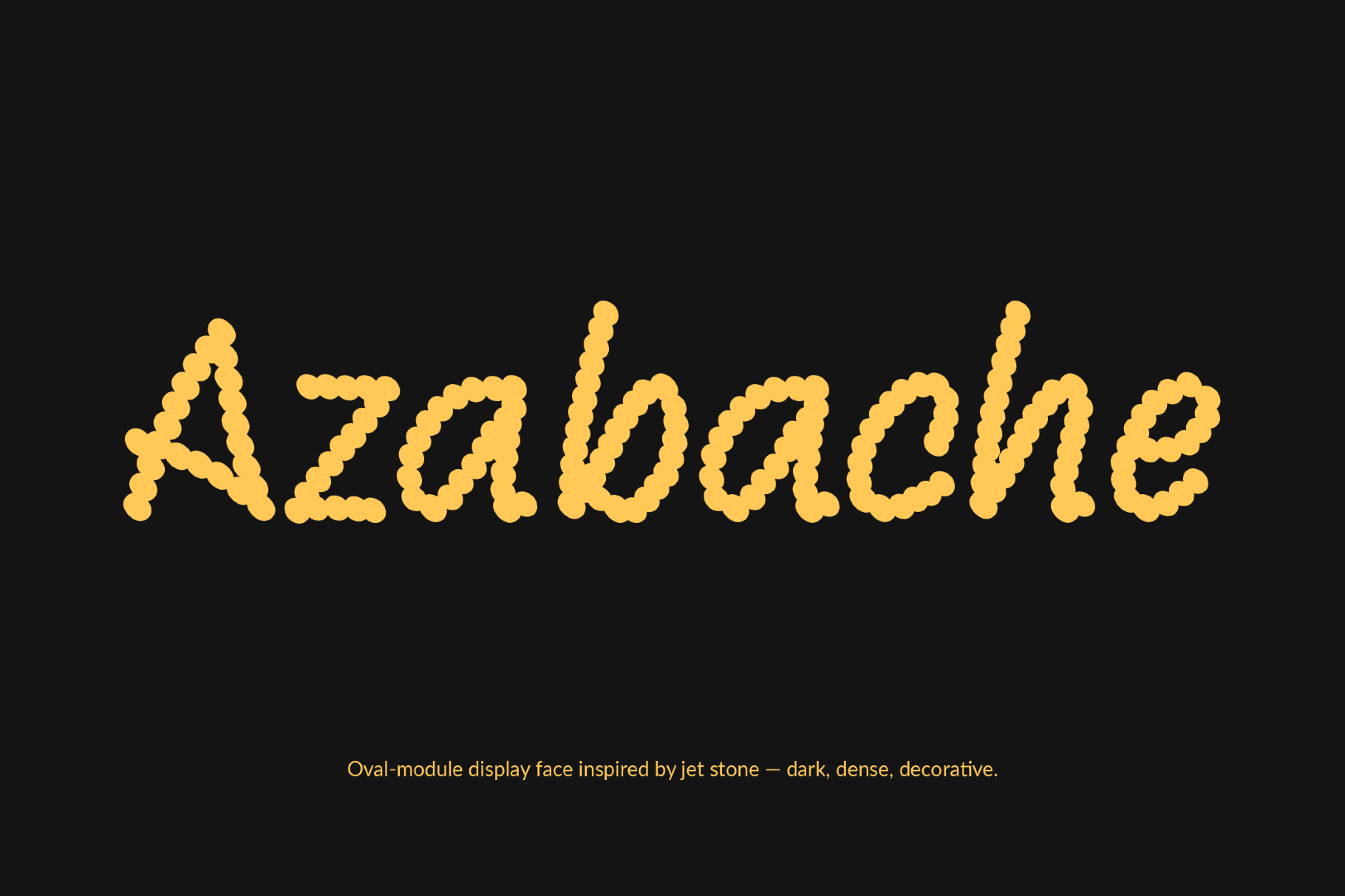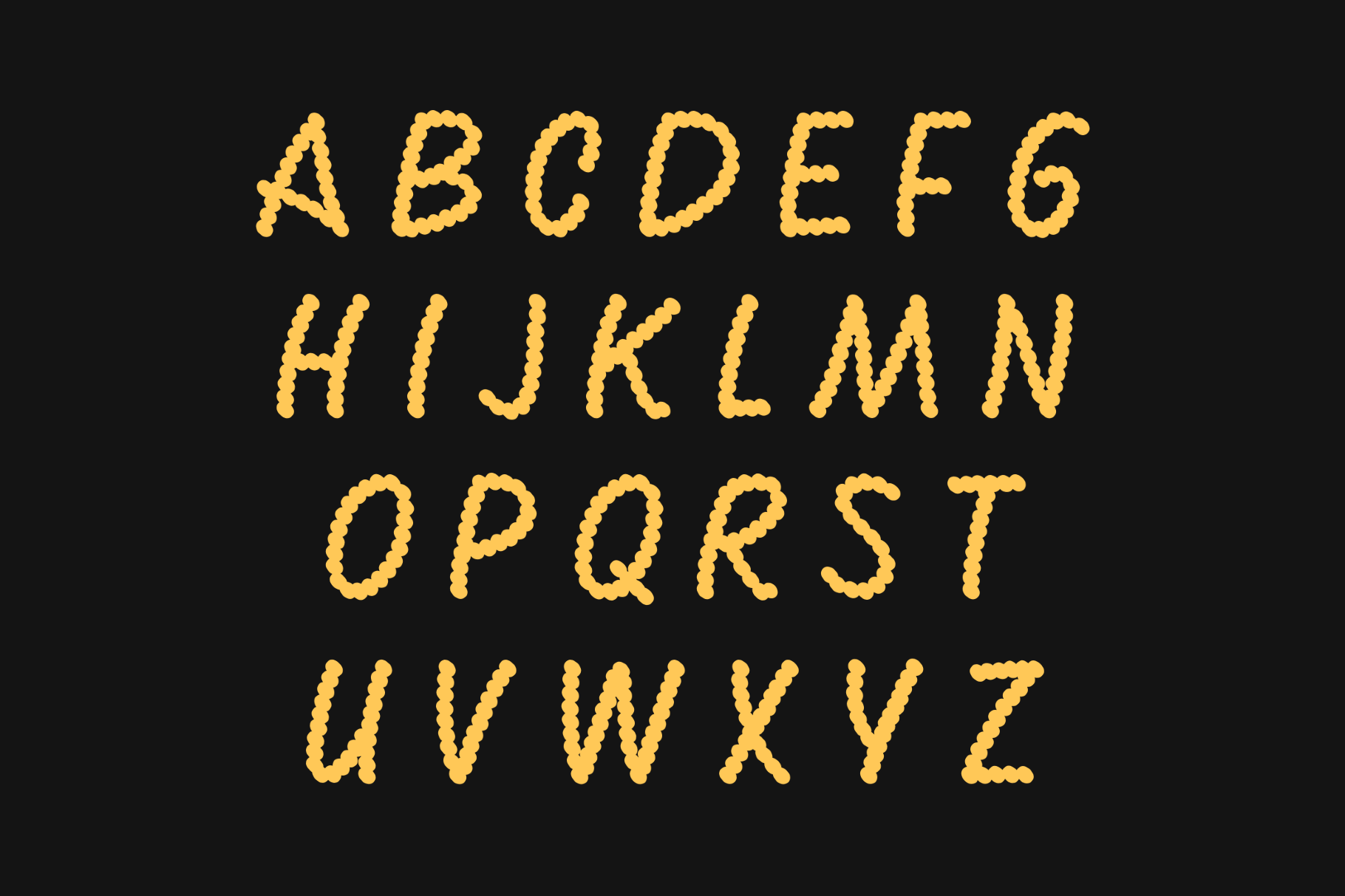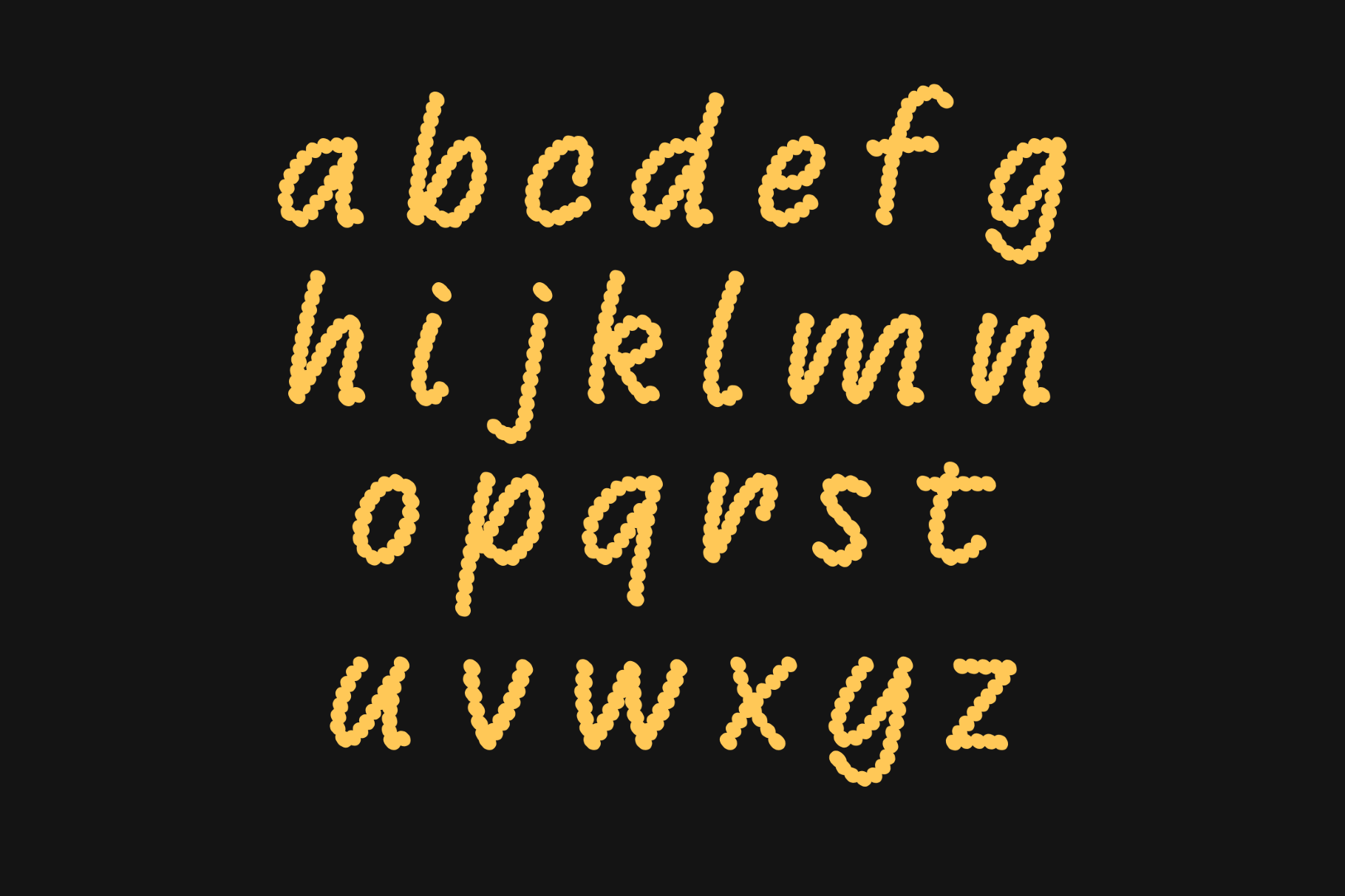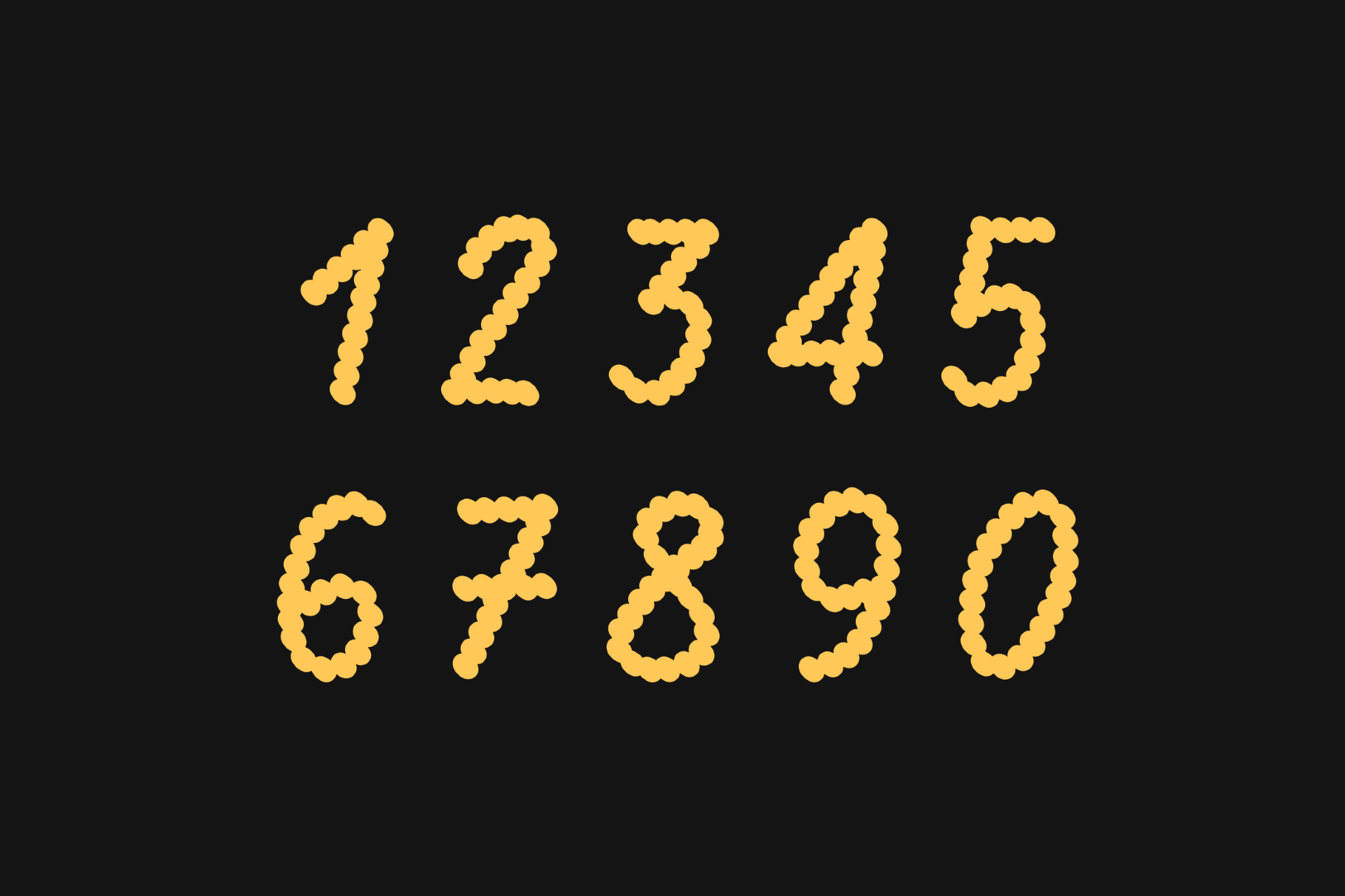
Azabache - Decorative Dot Font
Azabache is a dotted script with the airy cadence of pin-art lettering and hand-rendered signage from mid-century. Its perforated stroke gives the alphabet a light ornamental shimmer. Poster captions, boutique packaging, sewing labels, editorial features, invitation suites, beauty branding and artisanal product marks all sit naturally in its decorative rhythm.